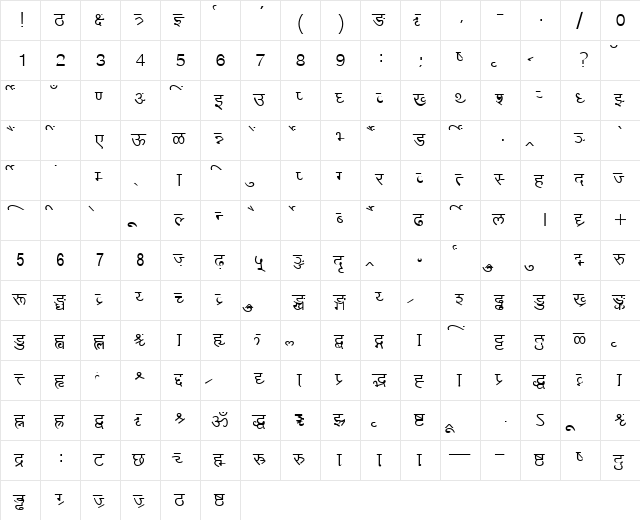
AkrutiDevBhaskar Normal
Design Context for AkrutiDevBhaskar Typeface
AkrutiDevBhaskar is a composed and adaptable typeface that performs quietly and consistently across a wide range of design contexts.
Pro Tip: Use AkrutiDevBhaskar in both headline and body roles to test its range before committing to a single application.